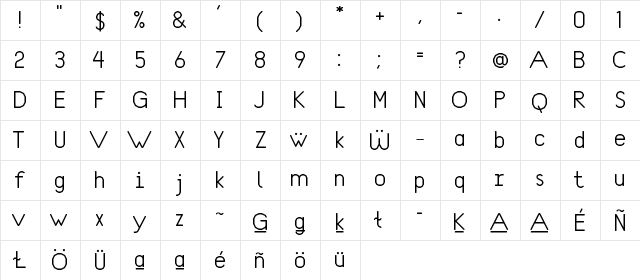
Sm'algyax rounded Regular
Design Context for Sm'algyax rounded Typeface
Sm'algyax rounded uses gentle rounded endings to create a warm, inviting typographic personality — less corporate than geometric sans, more refined than playful display fonts.
A natural fit for tech startups, health and wellness brands, children's products, and friendly consumer apps.
Font Pairing: Pairs well with a rounded or humanist sans for body copy, maintaining the friendly tone without relying on Sm'algyax rounded to carry extended reading.
Pro Tip: Pair Sm'algyax rounded with a geometric sans for a balanced system — the rounded softness works as a warm counterpoint to harder-edged companions.